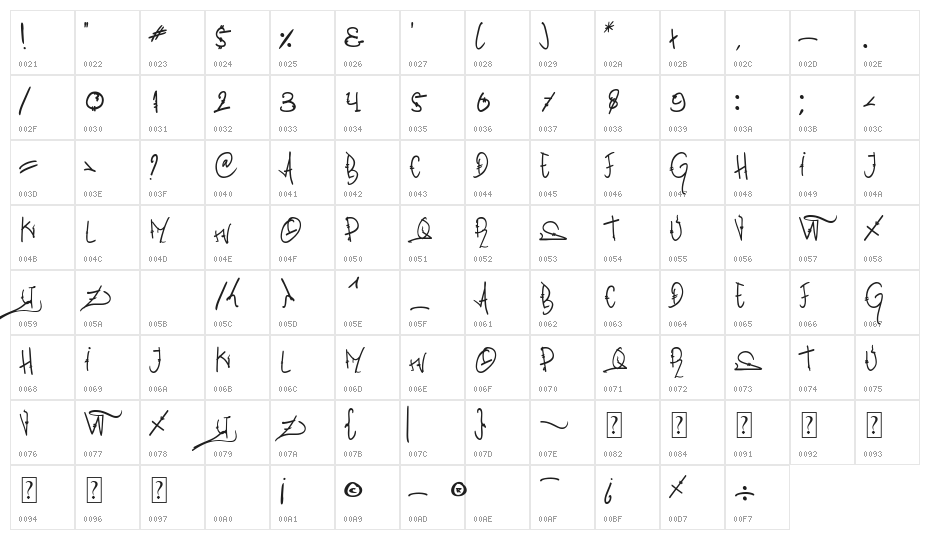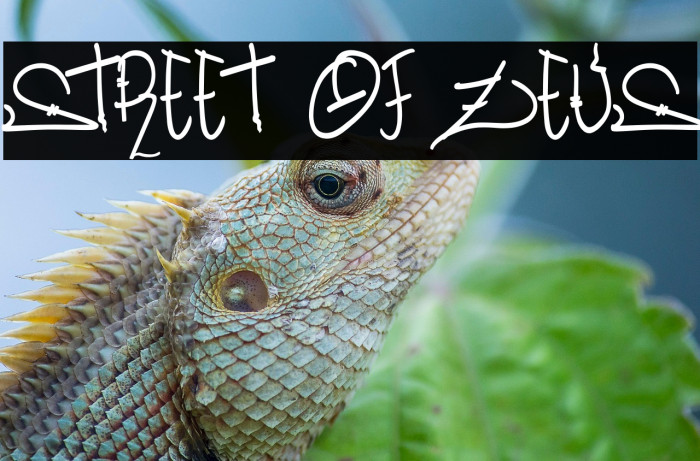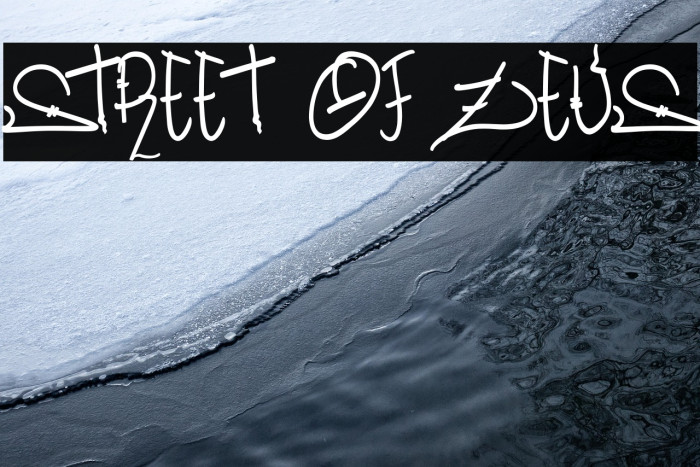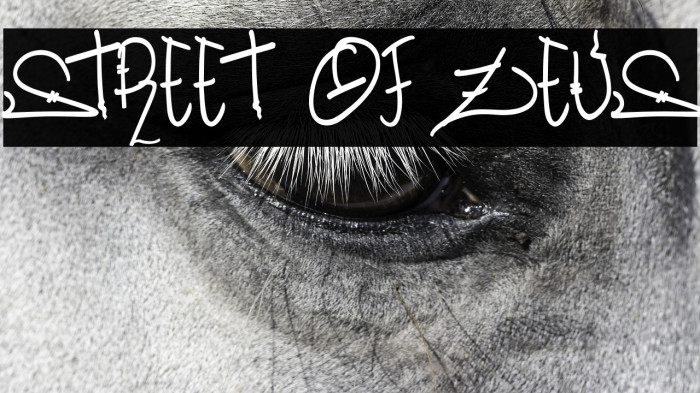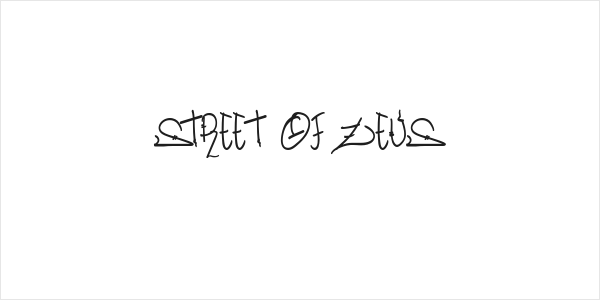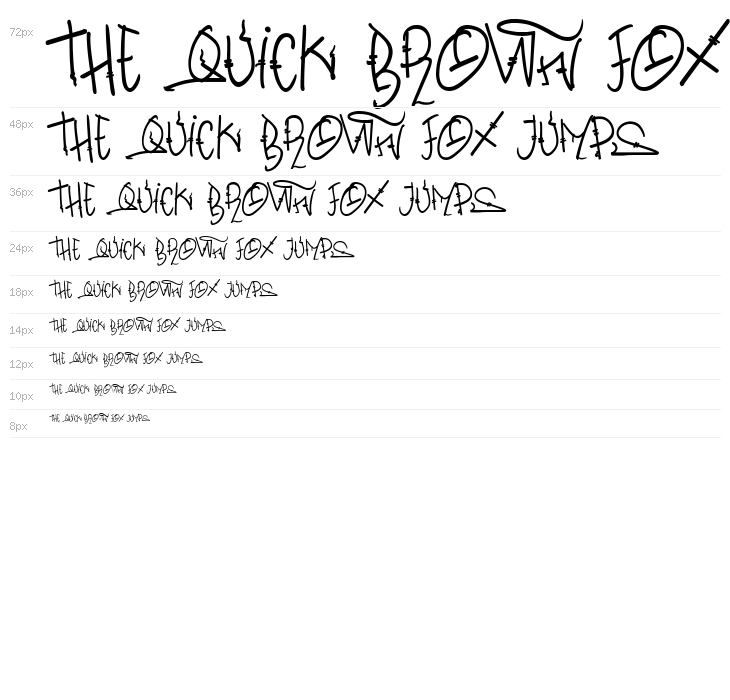
Street Of Zeus Font
Street Of Zeus Description
This font features a bold and dynamic style with a graffiti-inspired aesthetic. The characters are designed with sharp, angular lines and unique embellishments that give them an edgy, urban feel. The uppercase and lowercase letters maintain a consistent style, with exaggerated curves and strokes that create a sense of movement and energy. Numbers and special characters are equally stylized, ensuring a cohesive look across all text. The font's distinctive appearance makes it ideal for projects that require a strong visual impact.
| Overall Style | Urban, Edgy, Graffiti |
| Use Case | Logos, Posters, Album Covers |
| Proposed Projects | Ideal for street art designs, urban-themed posters, music album covers, and edgy branding projects. |